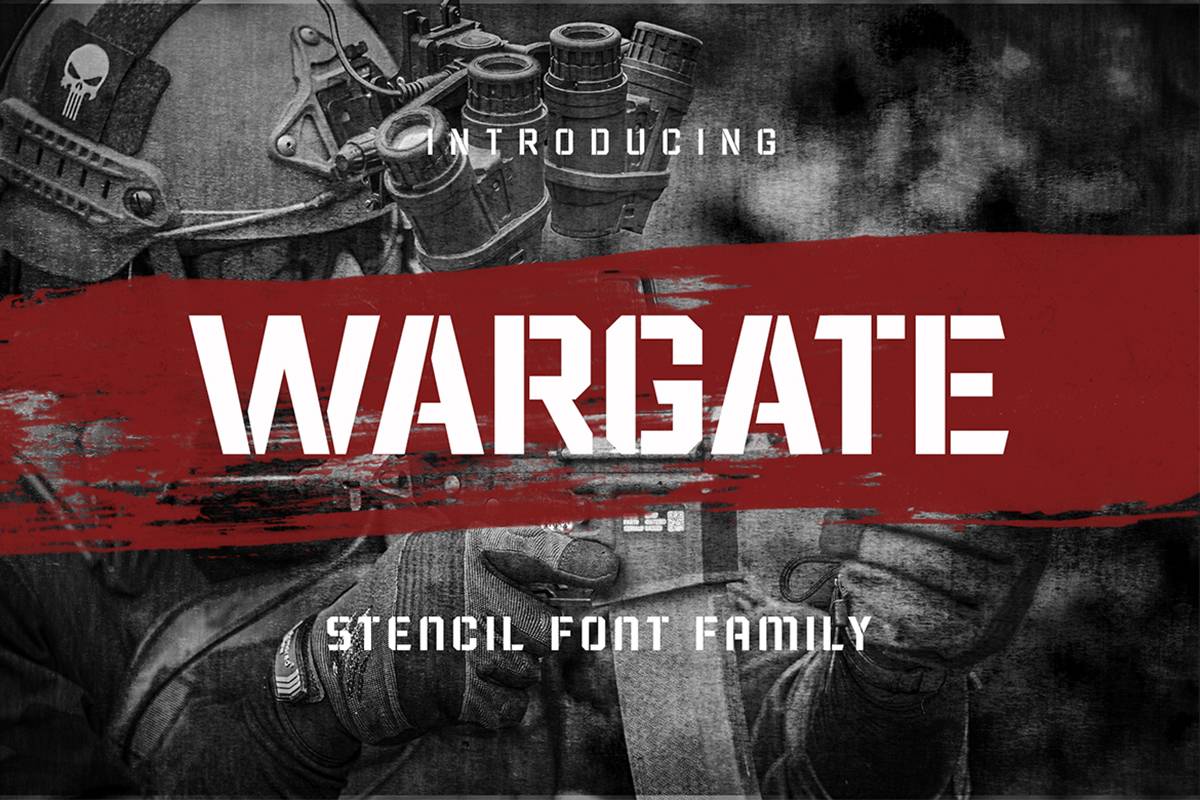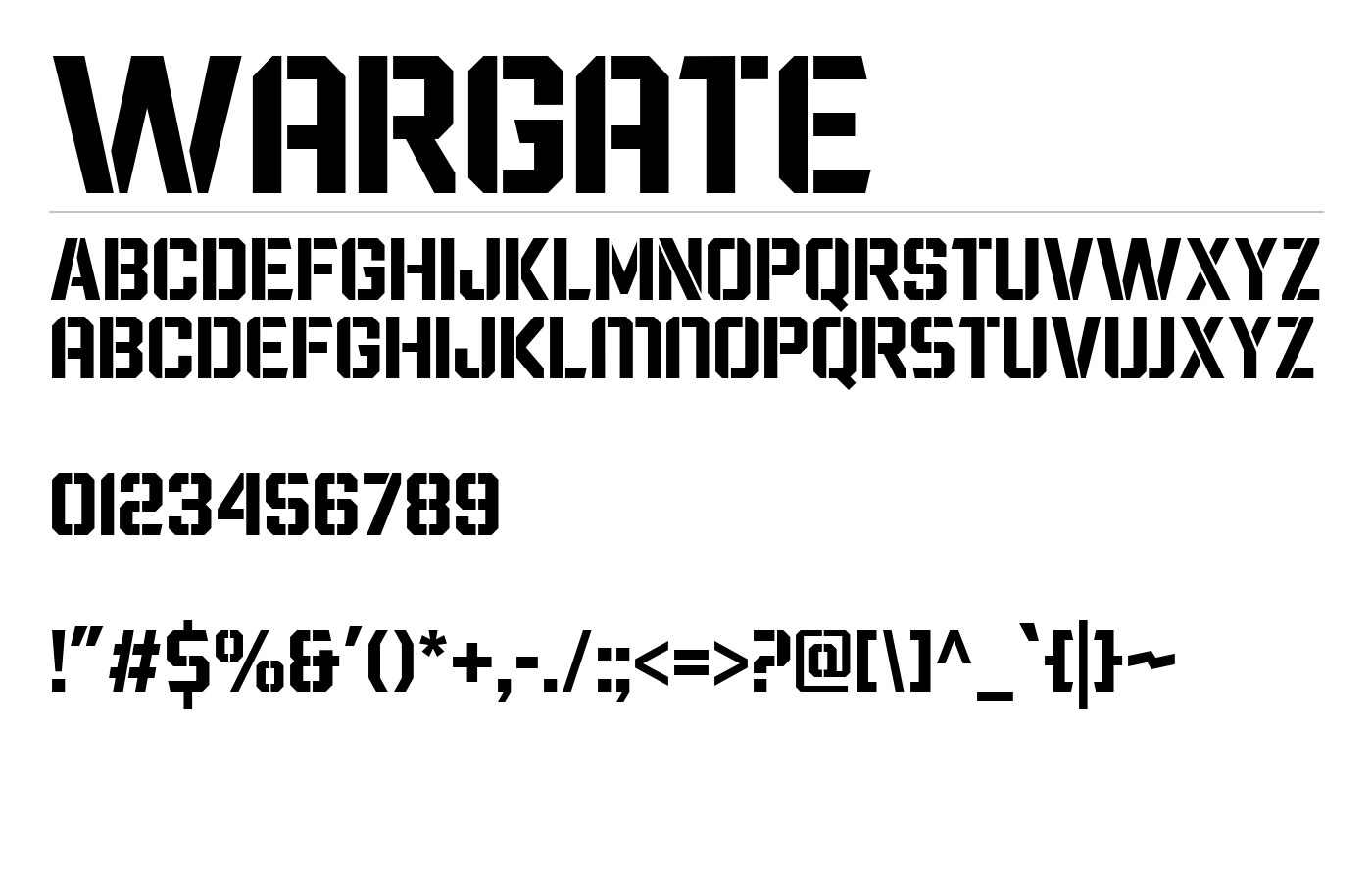
Wargate is a bold, condensed sans serif font with a strong geometric and stencil-inspired design, characterized by sharp angles and distinct cut-out shapes within the letterforms. It conveys a modern, industrial feel with high contrast between the solid strokes and the negative space, making it ideal for impactful headlines, logos, and branding that demand a sense of strength and precision. This font works especially well for projects in tech, sports, or military themes where a bold statement is needed.
Wargate Font
About Wargate Font
| Font family | Wargate Font |